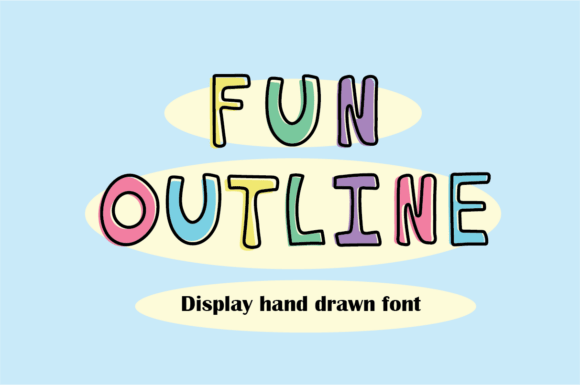
Introducing Fun Outline Font: The Ultimate Choice for Playful Designs
Are you looking for a font that can add a dash of fun and quirkiness to your designs? Look no further than the Fun Outline Font. This playful hand-drawn font is full of color and cheer, making it perfect for kids’ projects, party invites, educational materials, and more. In this article, we’ll dive into the features and benefits of the Fun Outline Font and explore how it can elevate your designs.
What is Fun Outline Font?
Fun Outline is a playful hand-drawn font that features a bold outline with a whimsical fill. Each letter is carefully crafted to bring a sense of fun and playfulness to your designs. The font’s unique combination of bold lines and colorful fills makes it stand out from more traditional fonts.
One of the key features of the Fun Outline Font is its versatility. It can be used for a wide range of projects, from kids’ party invitations and educational materials to social media graphics and website headers. The font’s playful design makes it perfect for any project that requires a touch of whimsy and fun.
Key Features of Fun Outline Font
- Hand-drawn design: Each letter is carefully hand-drawn to bring a unique and playful touch to your designs.
- Bold outline: The font features a bold outline that adds depth and dimension to your designs.
- Whimsical fill: The fill of each letter is designed to be fun and playful, adding a pop of color to your designs.
- Multilingual support: The font supports multiple languages, making it perfect for international projects.
Benefits of Using Fun Outline Font
So why choose the Fun Outline Font for your next project? Here are just a few benefits of using this playful font:
- Adds a touch of whimsy: The font’s playful design adds a touch of whimsy and fun to your designs, making them more engaging and attention-grabbing.
- Perfect for kids’ projects: The font’s colorful and playful design makes it perfect for kids’ projects, such as party invitations, educational materials, and activity sheets.
- Versatile: The font can be used for a wide range of projects, from digital graphics to print materials.
- Easy to read: Despite its playful design, the font is easy to read, making it perfect for use in body text and headings.
Tips and Tricks for Using Fun Outline Font
Here are a few tips and tricks for getting the most out of the Fun Outline Font:
- Use it for headings: The font’s playful design makes it perfect for use in headings and titles.
- Experiment with colors: The font’s fill can be customized to match your brand’s colors or to add a pop of color to your designs.
- Pair it with other fonts: The Fun Outline Font can be paired with other fonts to create a unique and visually appealing design.
- Use it for digital and print materials: The font can be used for both digital and print materials, making it a versatile addition to your font library.
In conclusion, the Fun Outline Font is a playful and versatile font that can add a touch of whimsy and fun to your designs. Its bold outline and whimsical fill make it perfect for kids’ projects, party invitations, educational materials, and more. With its ease of use and customization options, the Fun Outline Font is a great addition to any designer’s font library.
- What is the Fun Outline Font?
- The Fun Outline Font is a playful hand-drawn font featuring a bold outline with a whimsical fill.
- What is the font suitable for?
- The font is suitable for kids’ projects, party invitations, educational materials, and any project that requires a touch of whimsy and fun.
- Can I customize the font?
- Yes, the font can be customized to suit your needs, including changing the color, size, and style.